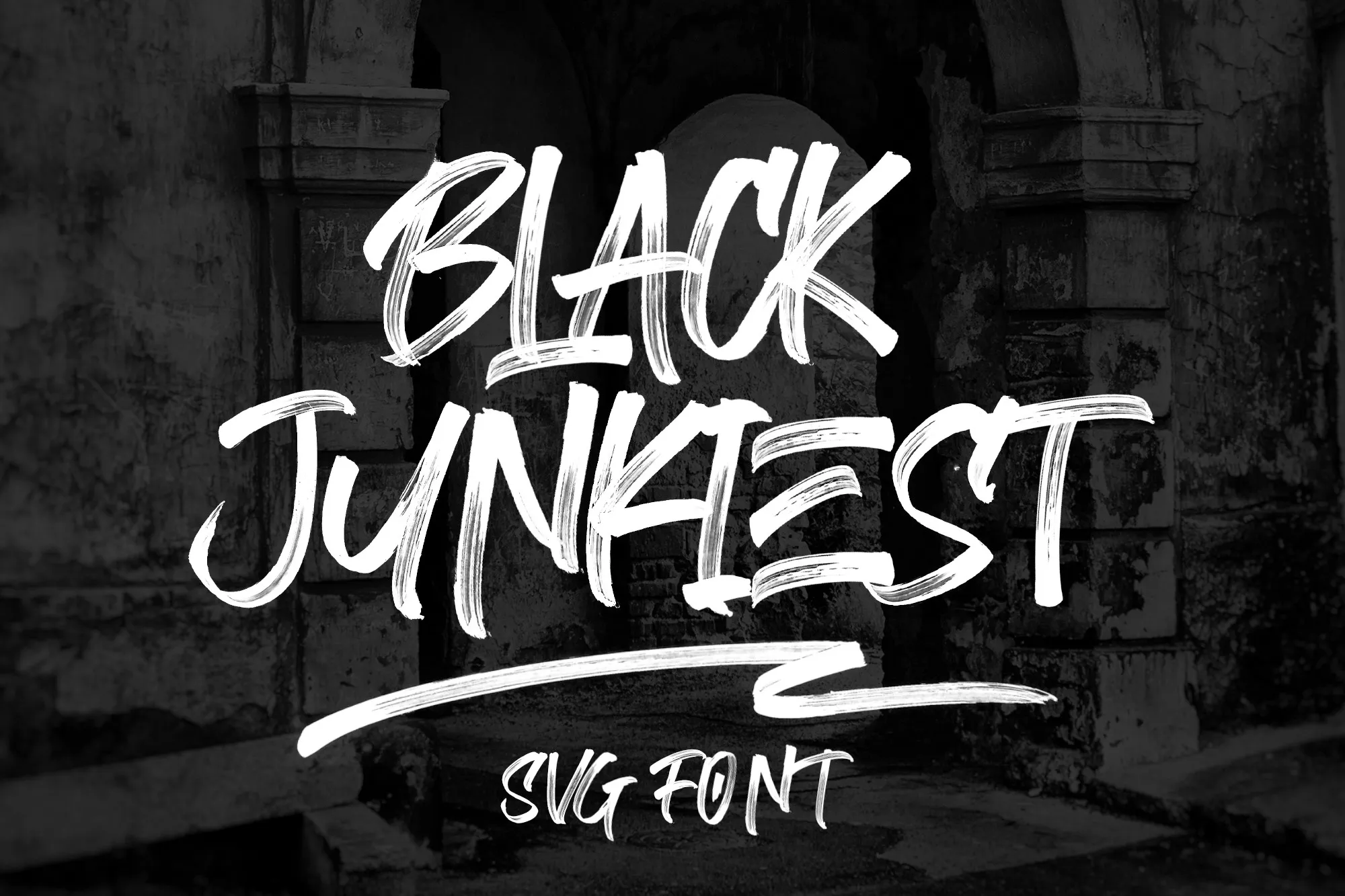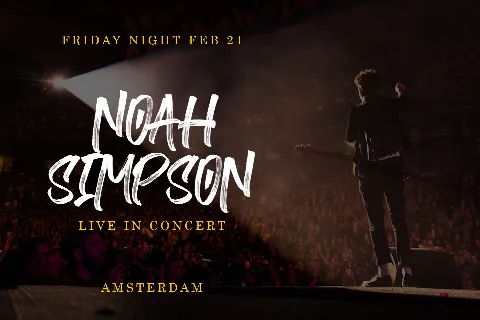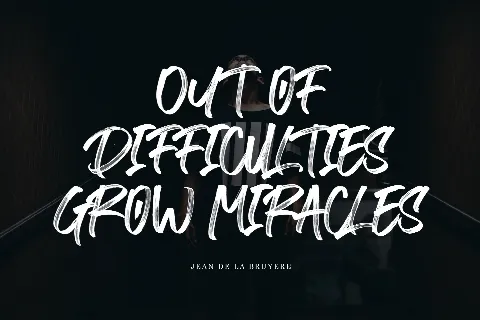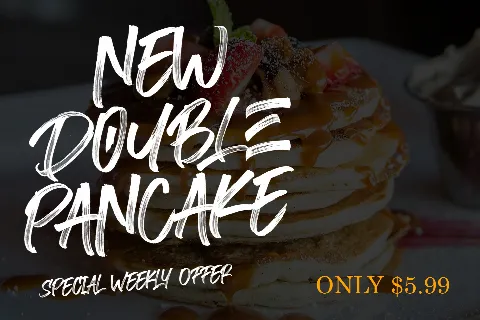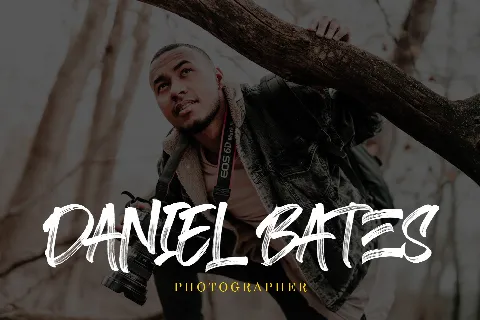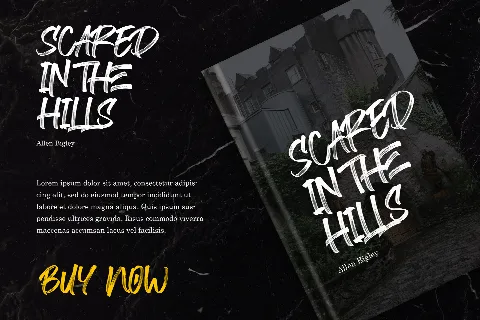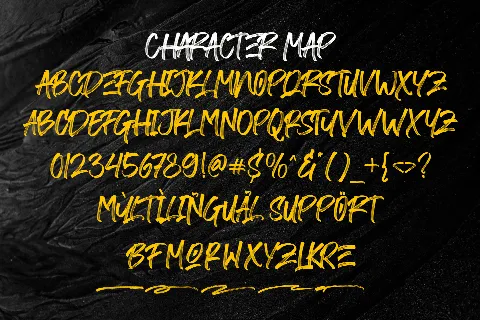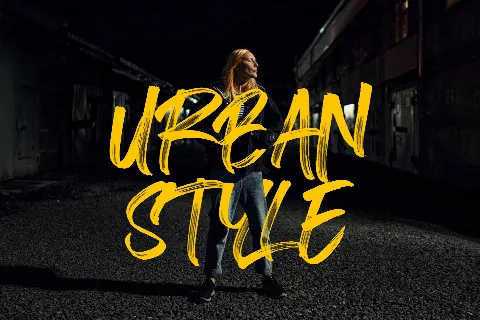
Black Junkiest
Introducing - Black Junkiest SVG Font Collections
Black Junkiest font preserves all the high definition detail of the original handwritten letters. Combine uppercase, lowercase, and alternative fonts to find great-looking creativity for your designs.
Take your design to the up level with a hyper-realistic font that truly looks hand painted. Black Junkiest uses brand new technology that makes way for more authentic looking fonts and is sure to grab the attention of customers and designers alike.